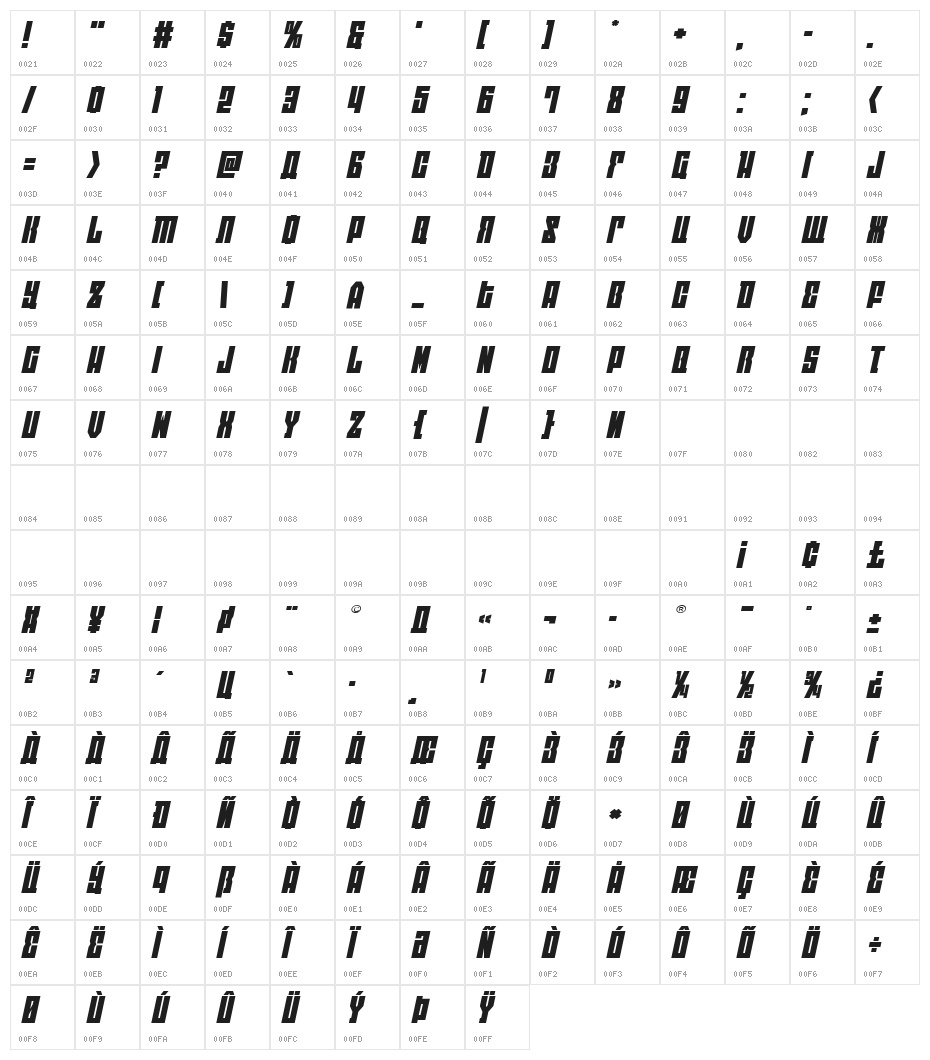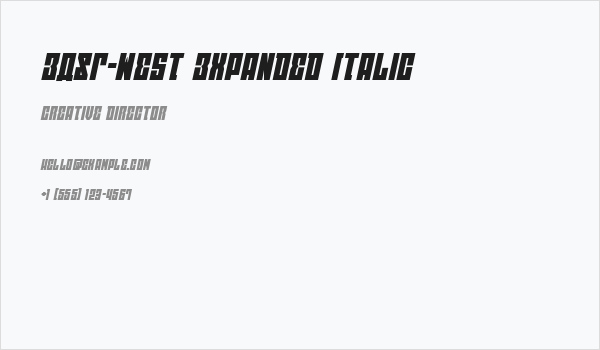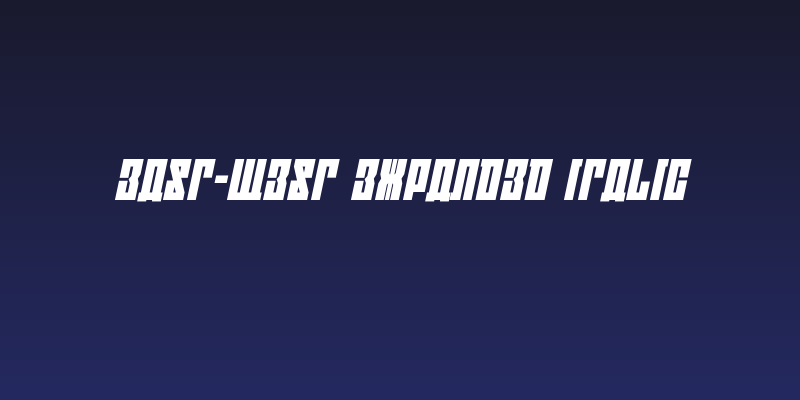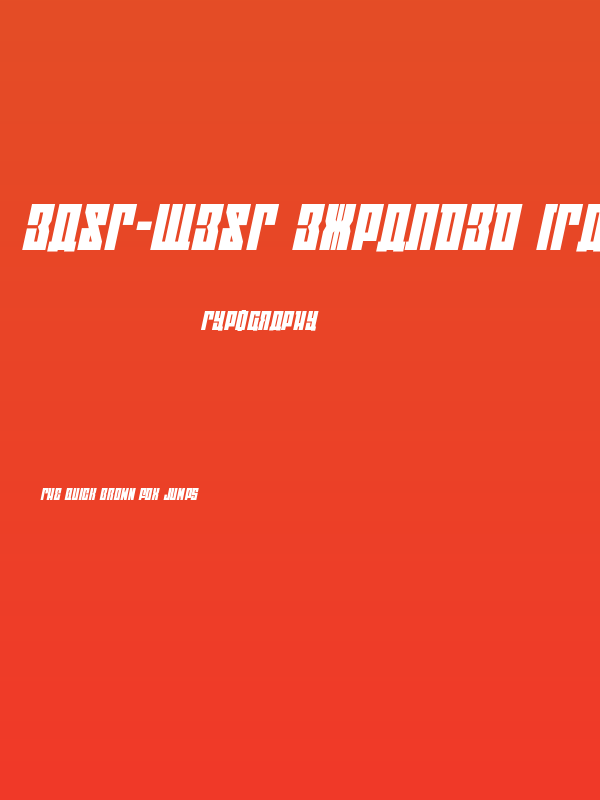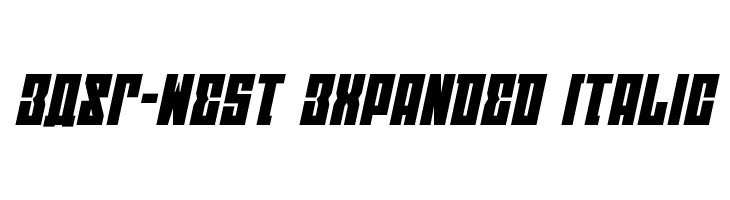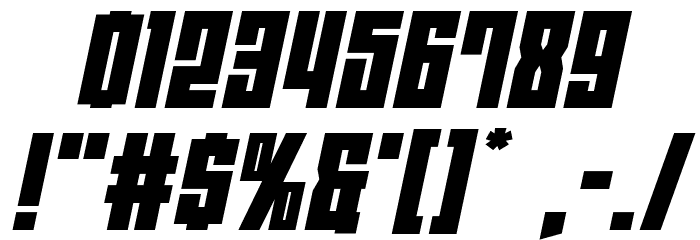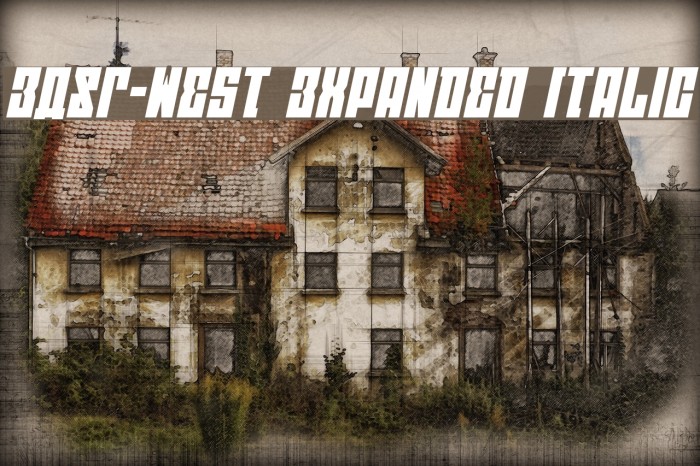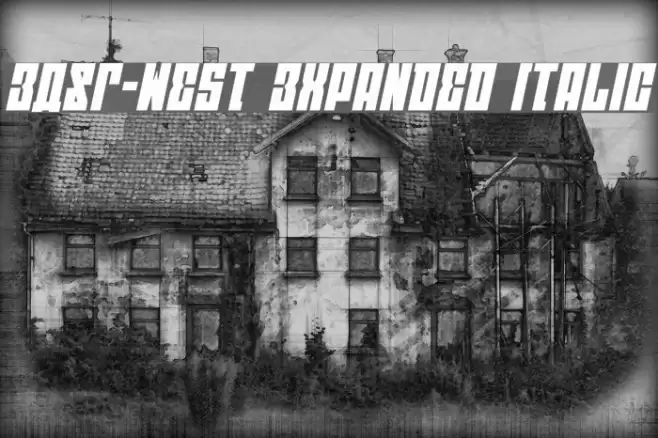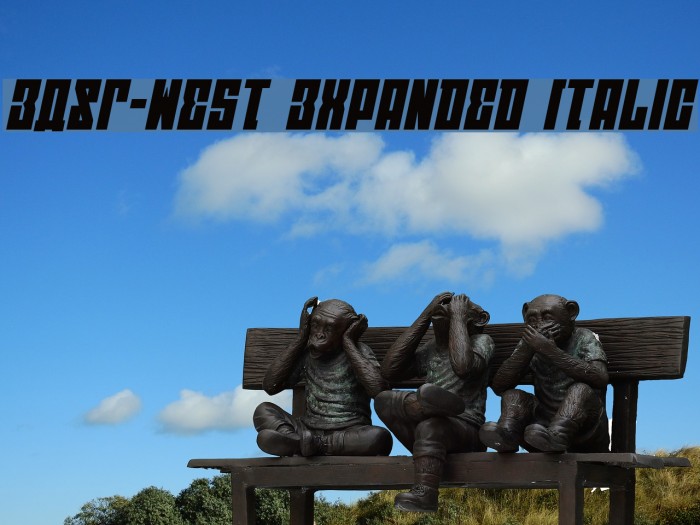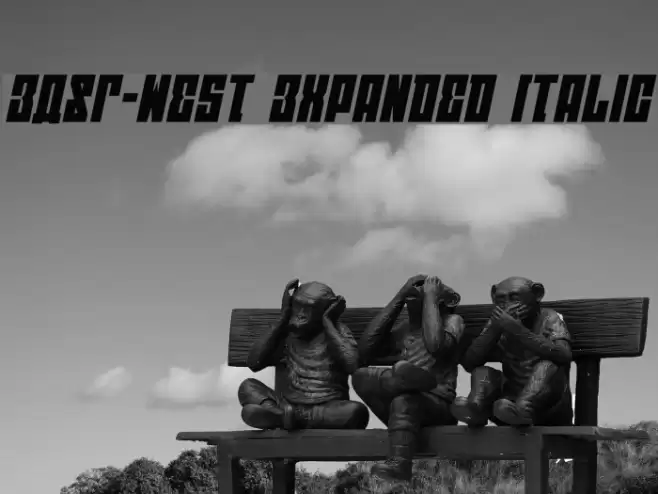
EAST-west Expanded Italic Font
This font features a bold, dynamic style with a strong presence. The characters are designed with an expanded width, giving them a commanding appearance. The italic slant adds a sense of motion and energy, making it ideal for attention-grabbing headlines. The angular, geometric shapes of the letters contribute to a modern and edgy aesthetic. The high contrast between thick and thin strokes enhances its boldness, while the tight character spacing ensures a compact and impactful look. This font is well-suited for projects that require a strong visual impact and a contemporary feel.